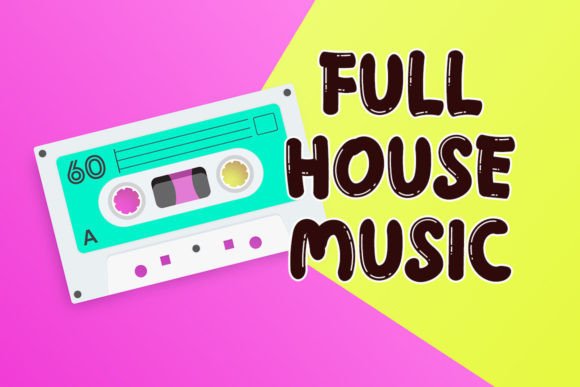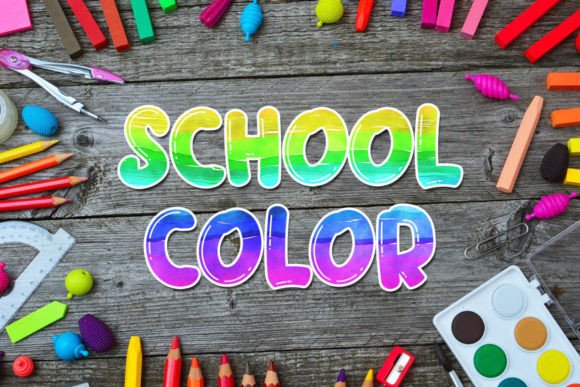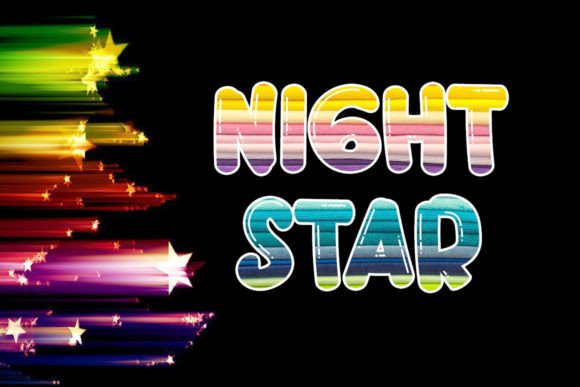
Introduction to Love Heaven Font
Love Heaven is a beautiful and sweet font.
It is fresh, clean, and elegant This font will look amazing in a great number of projects, both formal and informal.
Love Heaven Font offers exceptional quality and versatility, making it a valuable addition to your design toolkit. Whether you’re creating for personal projects or commercial use, Love Heaven Font delivers professional results.